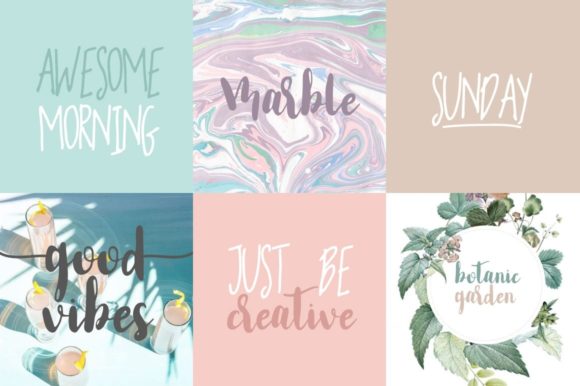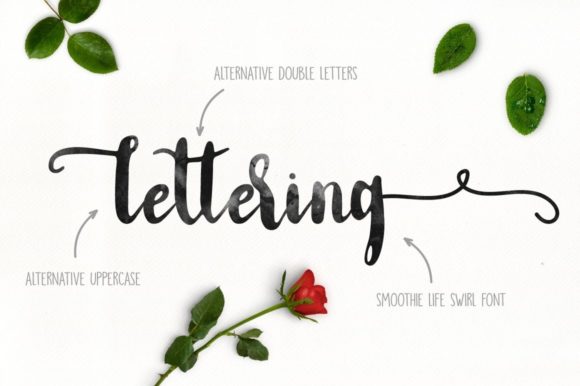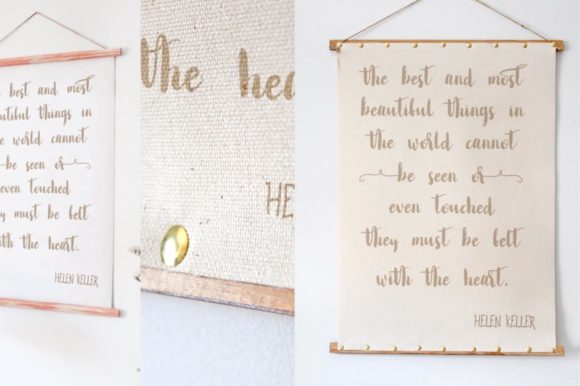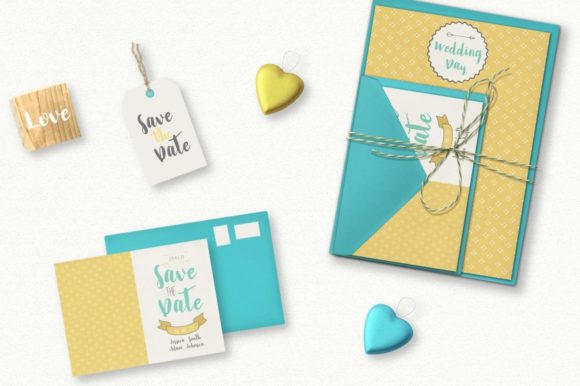
Be with Smoothie Life Font – Free Download
Introduction to Be with Smoothie Life Font
Be with Smoothie Life This font is handwritten and contains alternative double letters, alternative uppercase and swirl font.
You need to make t-shirt design or invitation Maybe you want to make poster, send a postcard to a friend or a pillow.
Key Features of Be with Smoothie Life Font
Why Choose Be with Smoothie Life Font?
Be with Smoothie Life Font offers exceptional quality and versatility, making it a valuable addition to your design toolkit. Whether you’re creating for personal projects or commercial use, Be with Smoothie Life Font delivers professional results.